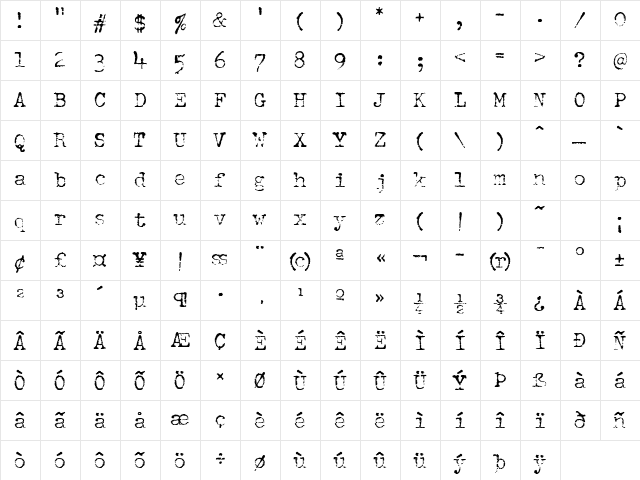
SchmutzICG Corroded
Design Context for SchmutzICG Typeface
SchmutzICG is a composed and adaptable typeface that performs quietly and consistently across a wide range of design contexts.